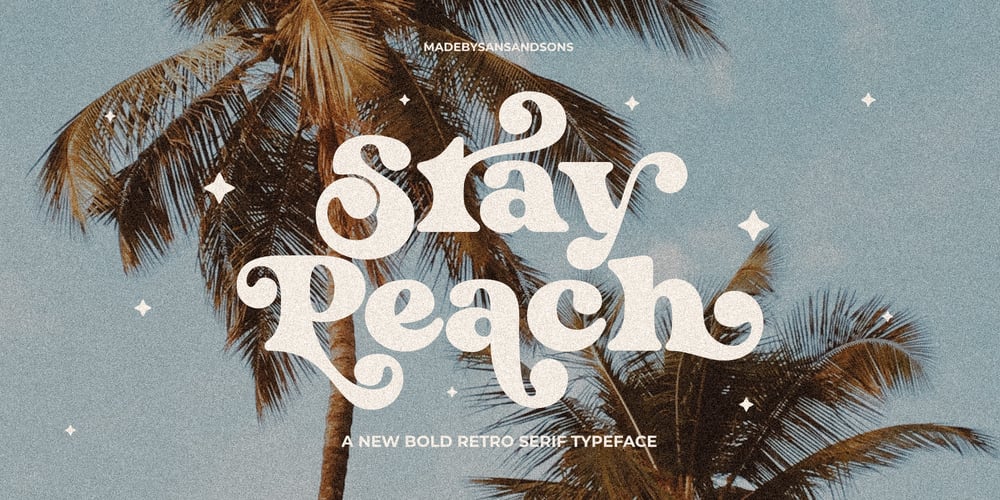
Stay Peach Font Family was designed by Angga Suwista and published by Sans And Sons. Stay Peach contains 1 styles and family package options. Stay Peach is Modern Retro Serif with Unique Elegant and Retro Style.Each unique come with alternate letters designed to create harmoniously, charming and lend themselves to high end branding, product packaging, logo designs & invitation designs.